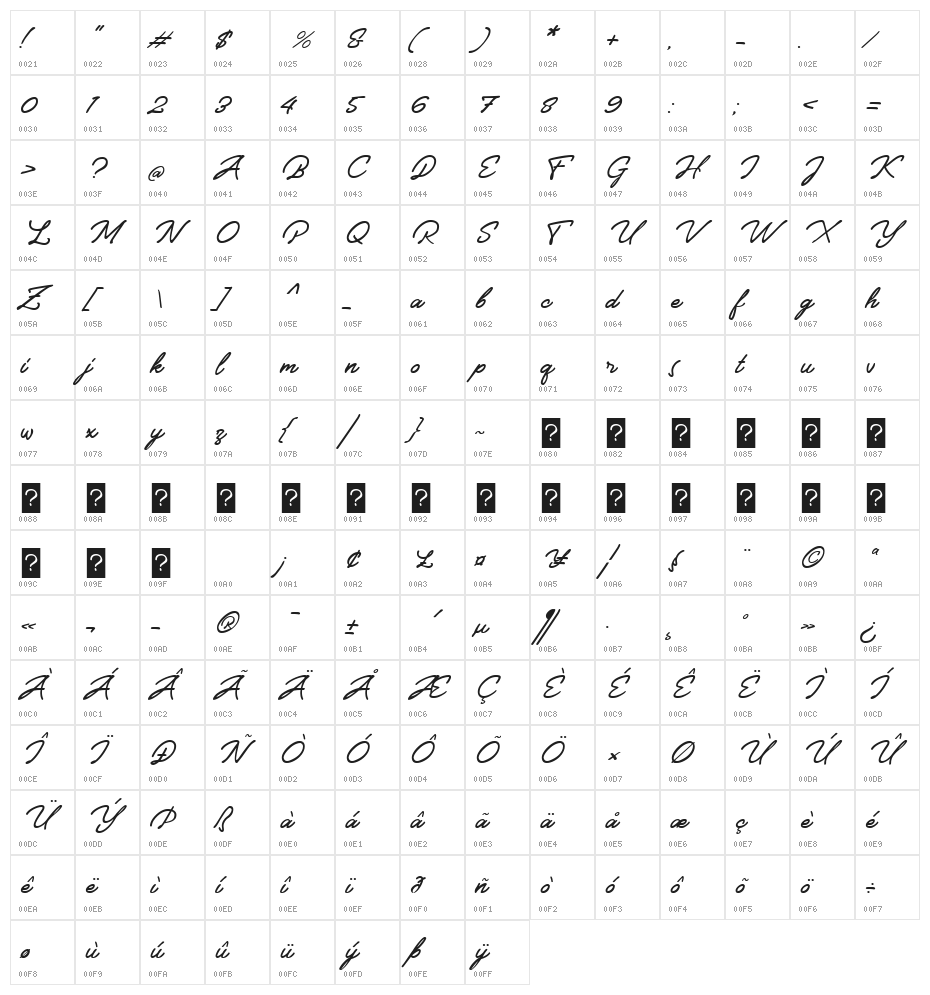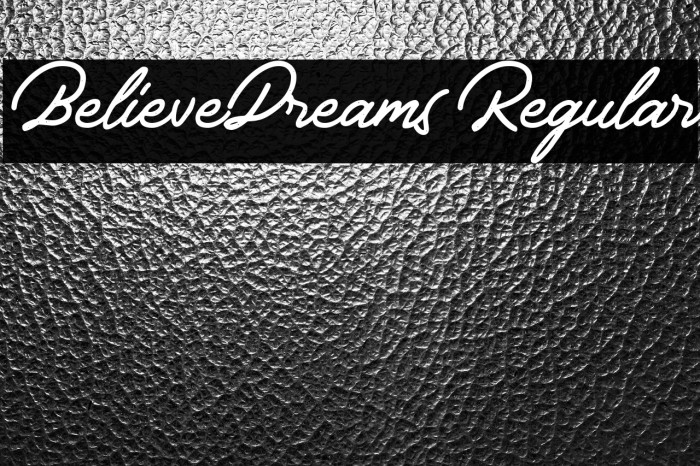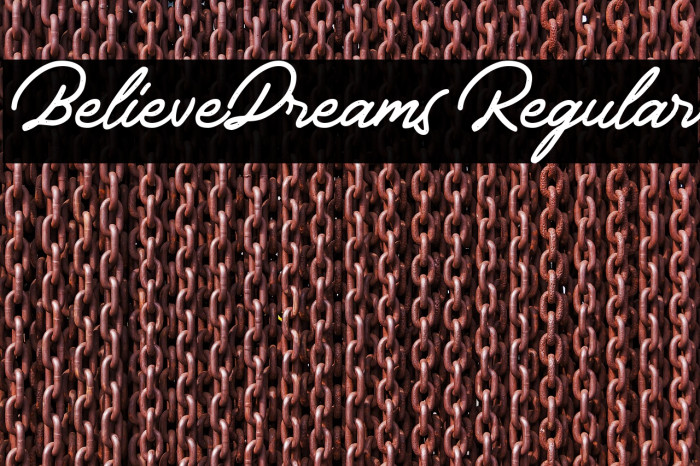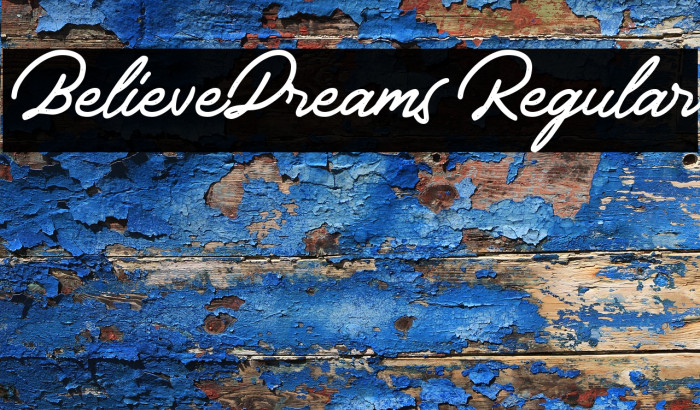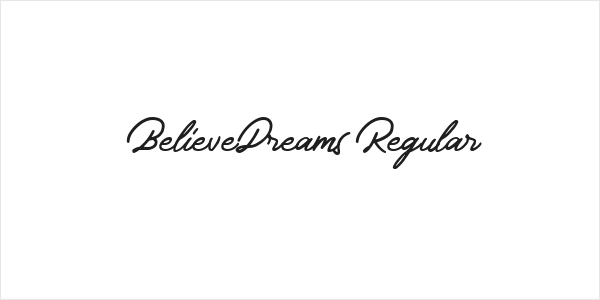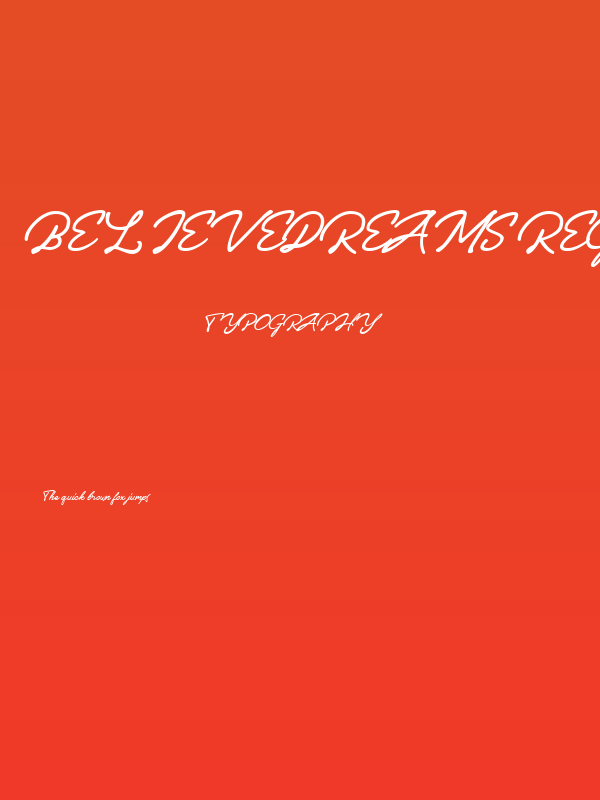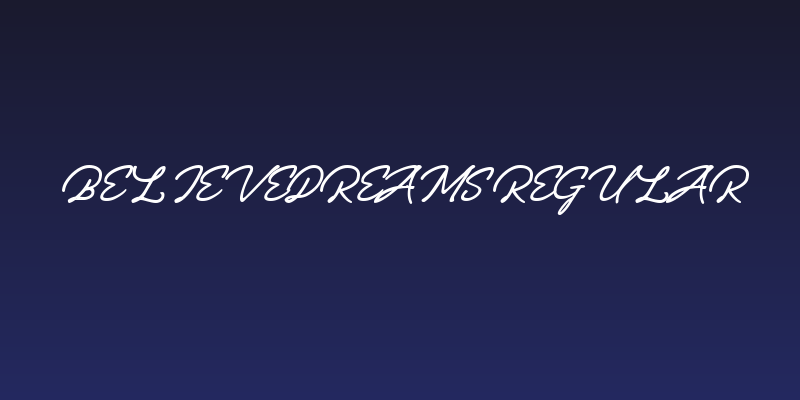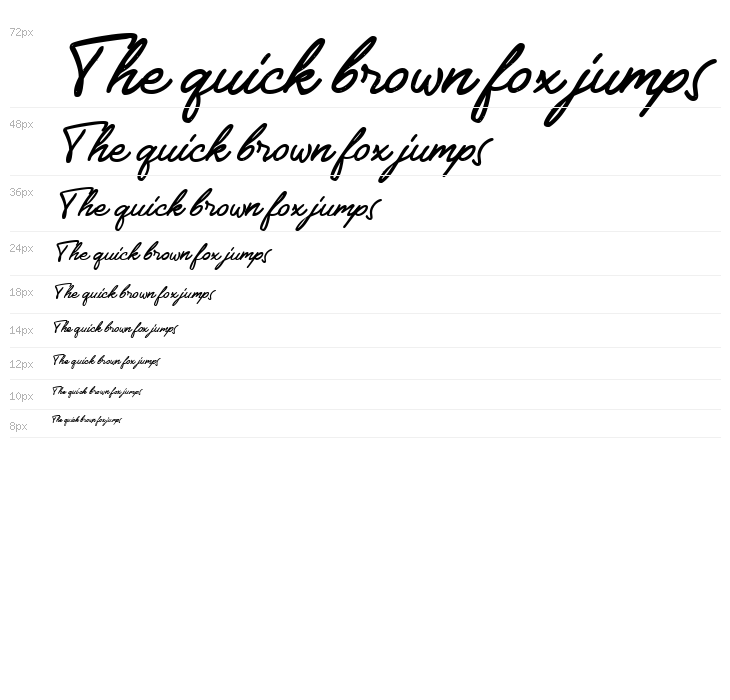
BelieveDreams Regular Font
BelieveDreams Regular Description
This font exudes a lively and dynamic script style, characterized by its fluid, cursive strokes that mimic the natural flow of handwriting. The letters are elegantly connected, creating a seamless and harmonious appearance. The uppercase letters are bold and prominent, while the lowercase letters maintain a consistent rhythm, enhancing readability. The numerals and special characters are crafted with the same attention to detail, ensuring a cohesive look across all glyphs. This font's design is perfect for adding a personal touch to any project, making it ideal for creative and expressive applications.